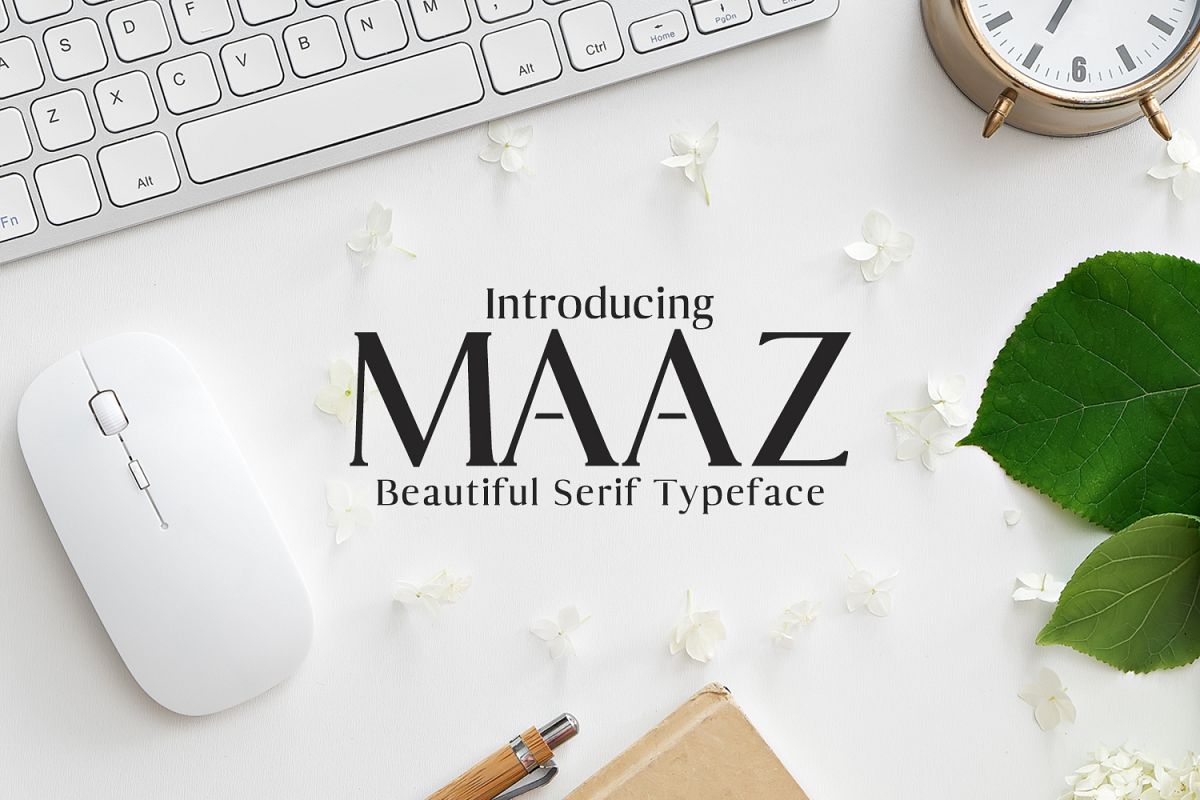
Maaz Serif 6 Fonts Family Pack
Maaz Bold
Maaz Regular
Maaz Outline
Maaz Ligh
Maaz Medium
Maaz is the perfect typeface to create sleek and elegant logo designs and headlines and. It pairs well with both script and sans-serif fonts and features multiple weights.
• Font Weight: Regular, Light, Medium, Bold and Outline
Maaz Font Features:
• Uppercase Multilingual Letters
• Lowercase Multilingual Letters
• Alternative